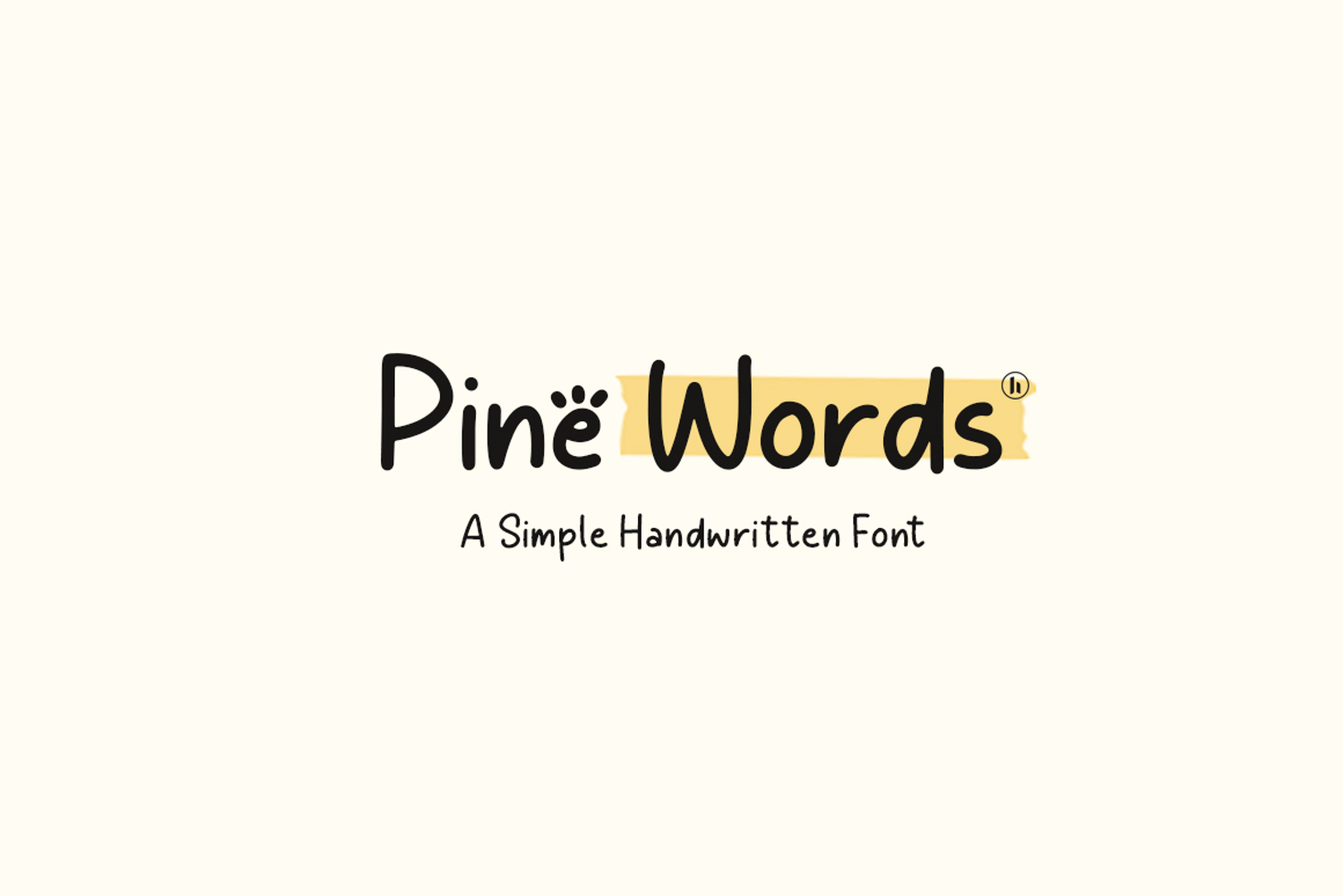
Pine Words Handwritten Font
Pine Words is a simple handwritten font that brings a playful, friendly, and natural feel to your creative projects. Designed with smooth curves and clean handwritten strokes, this font is perfect for branding, social media posts, logos, quotes, invitations, packaging, children’s designs, and casual typography needs. Its charming handwritten style creates an authentic and approachable look while remaining easy to read across both digital and print designs.
Pine Words Handwritten Font